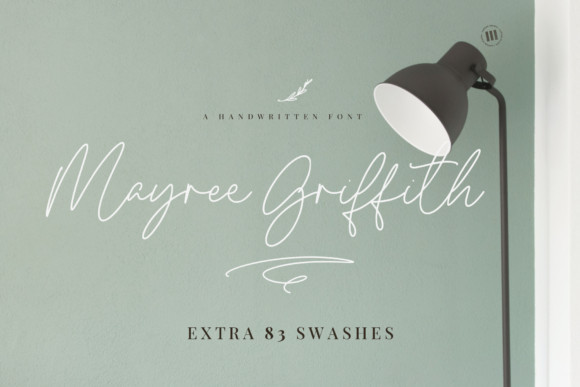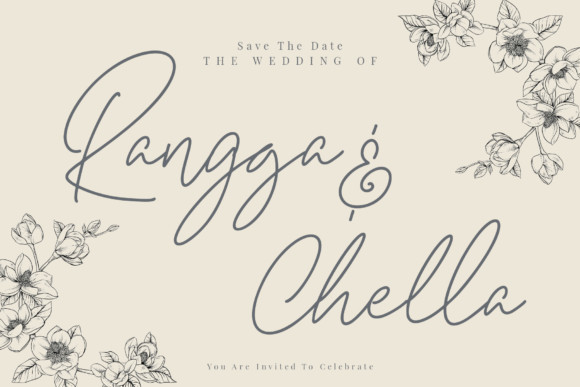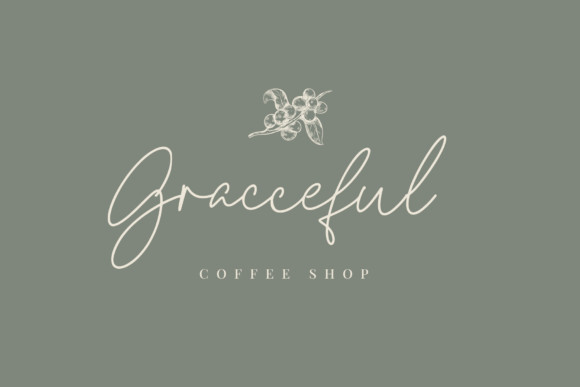
Mayree Griffith Font
Mayree Griffith FontMayree Griffith is a thin and elegant handwritten font with cute nature elements. It has beautiful and well-balanced characters and as a result, it matches a wide pool of designs. Add it to your most creative ideas and notice how it makes them come alive!